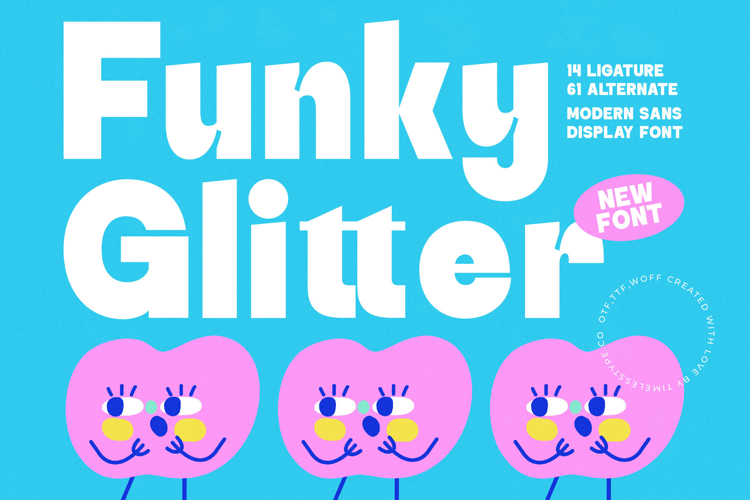
Funky Glitter - Modern Sans Display Font
The Funky Glitter Typeface is a modern sans display font that radiates playful energy, bold character, and a contemporary edge. With its 14 ligatures and 61 alternates, this typeface gives designers the freedom to create fun, dynamic, and highly expressive typographic compositions. Its chunky, geometric shapes and smooth curves give it a distinctive, quirky charm, making it perfect for projects that need to stand out with a cheerful and modern personality. Each letter feels bold and confident, while the alternates allow for a variety of creative expressions that keep designs fresh and engaging.
This font is highly suitable for branding projects that want to highlight creativity and friendliness. It works especially well for children’s products, lifestyle brands, playful packaging, and modern start-ups that aim to project a youthful and vibrant identity. Its bold letterforms ensure memorability in logos, product packaging, and advertising campaigns, helping brands establish a fun and approachable image.